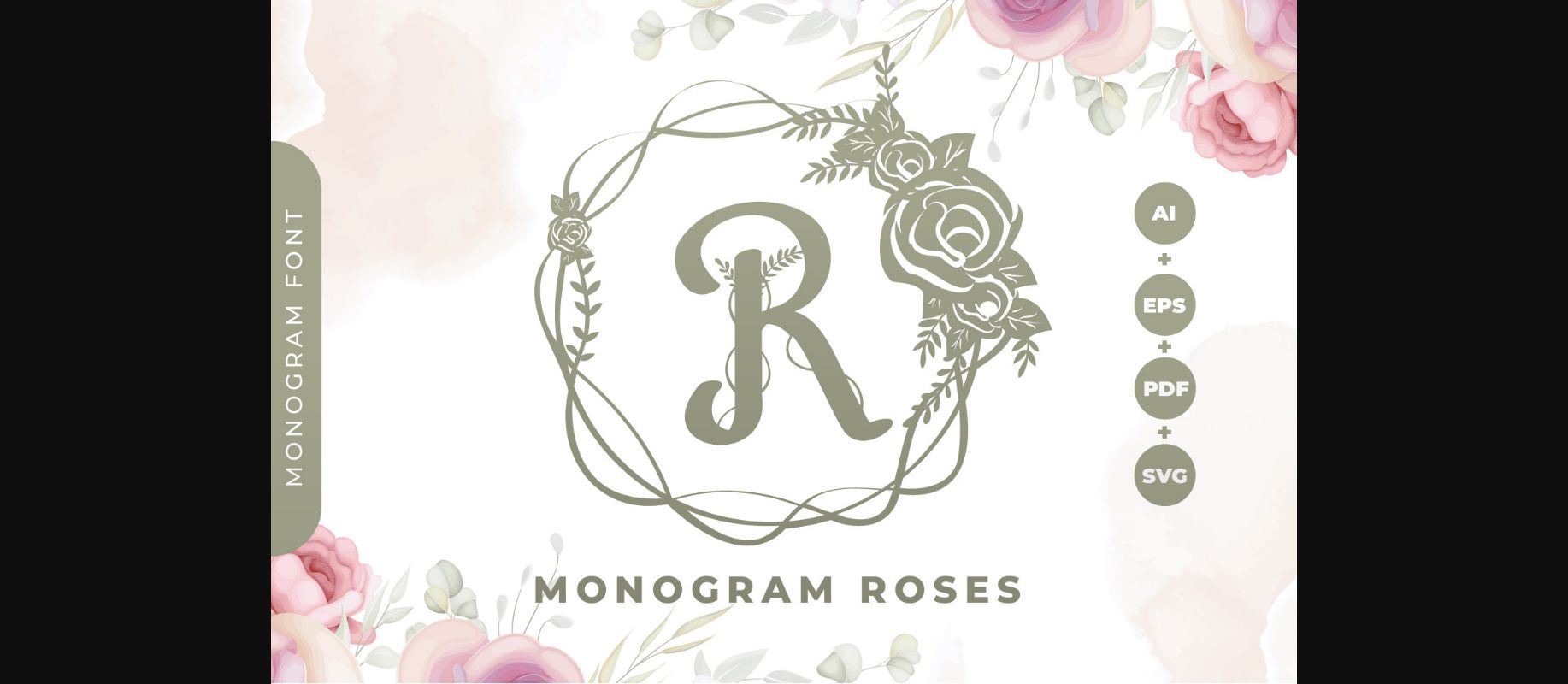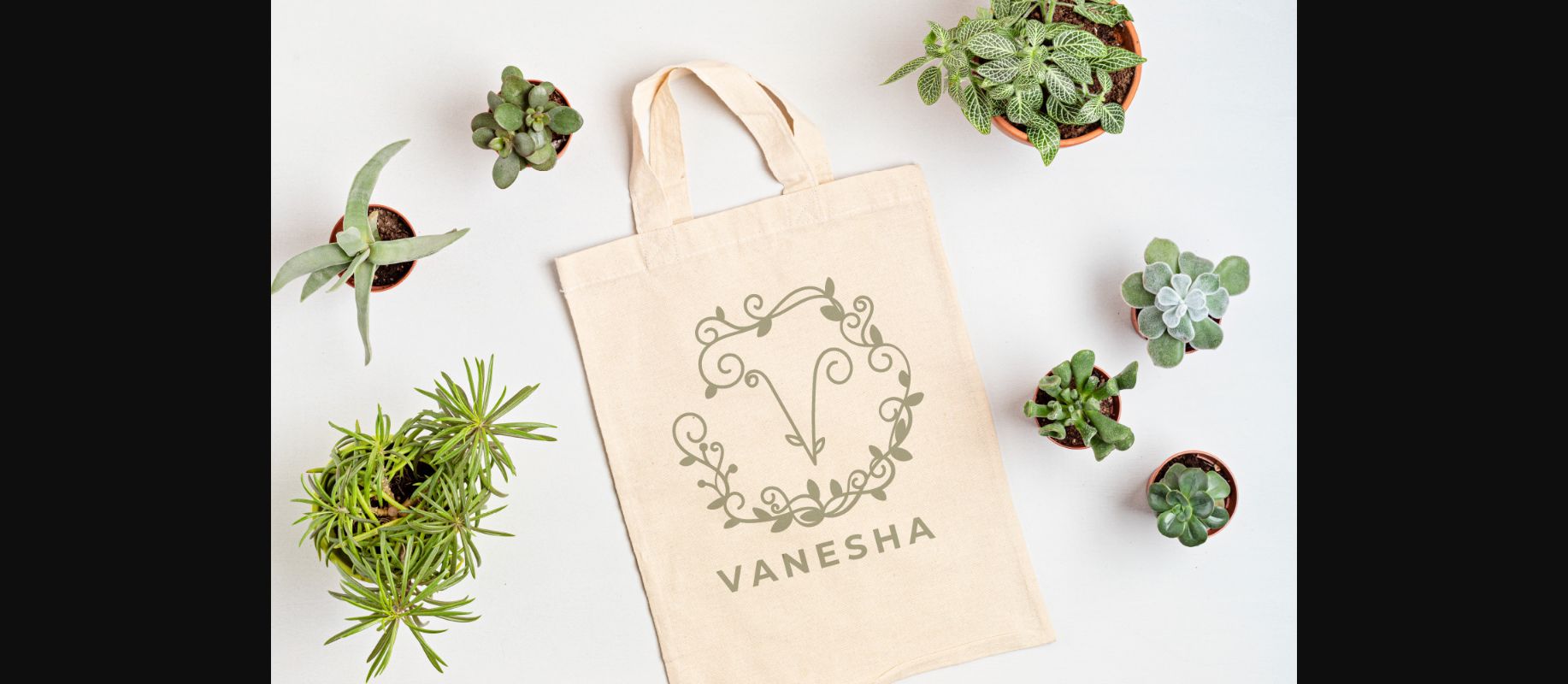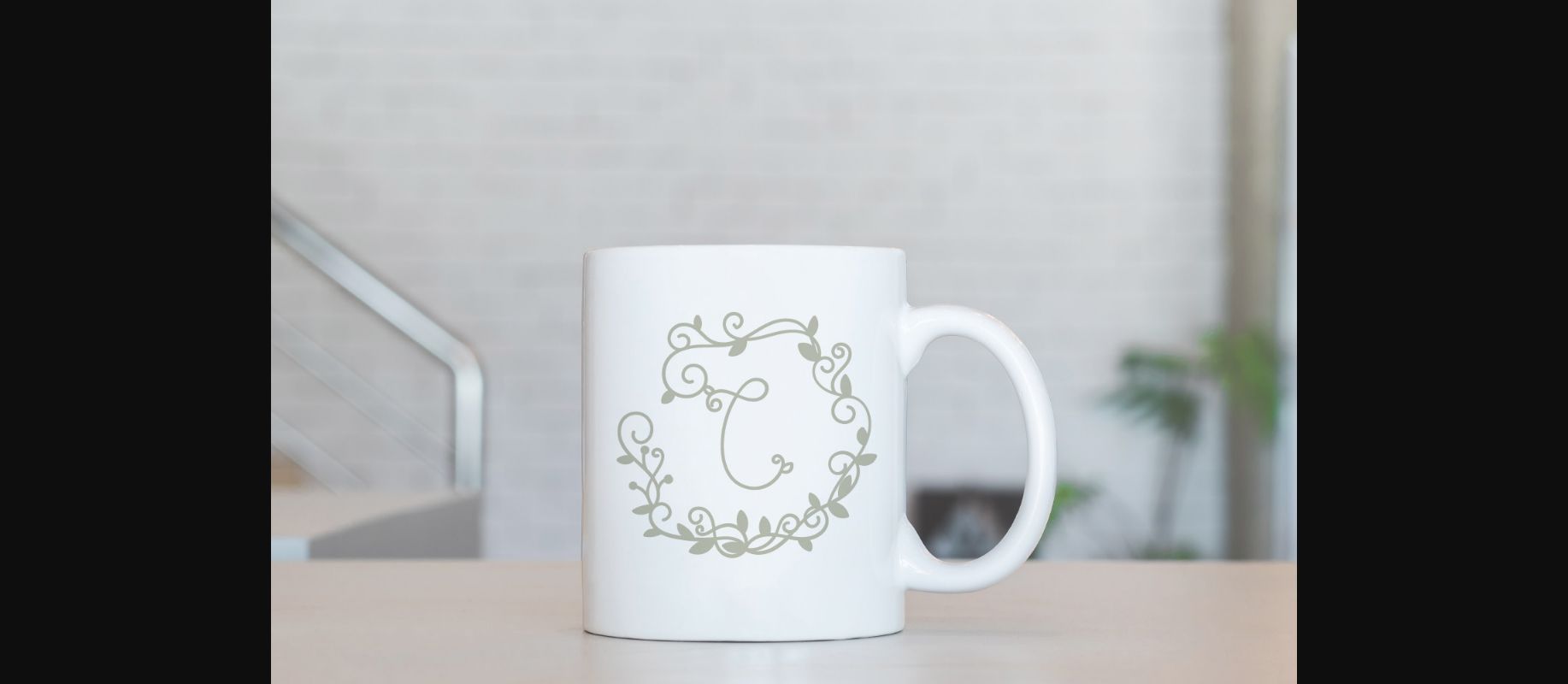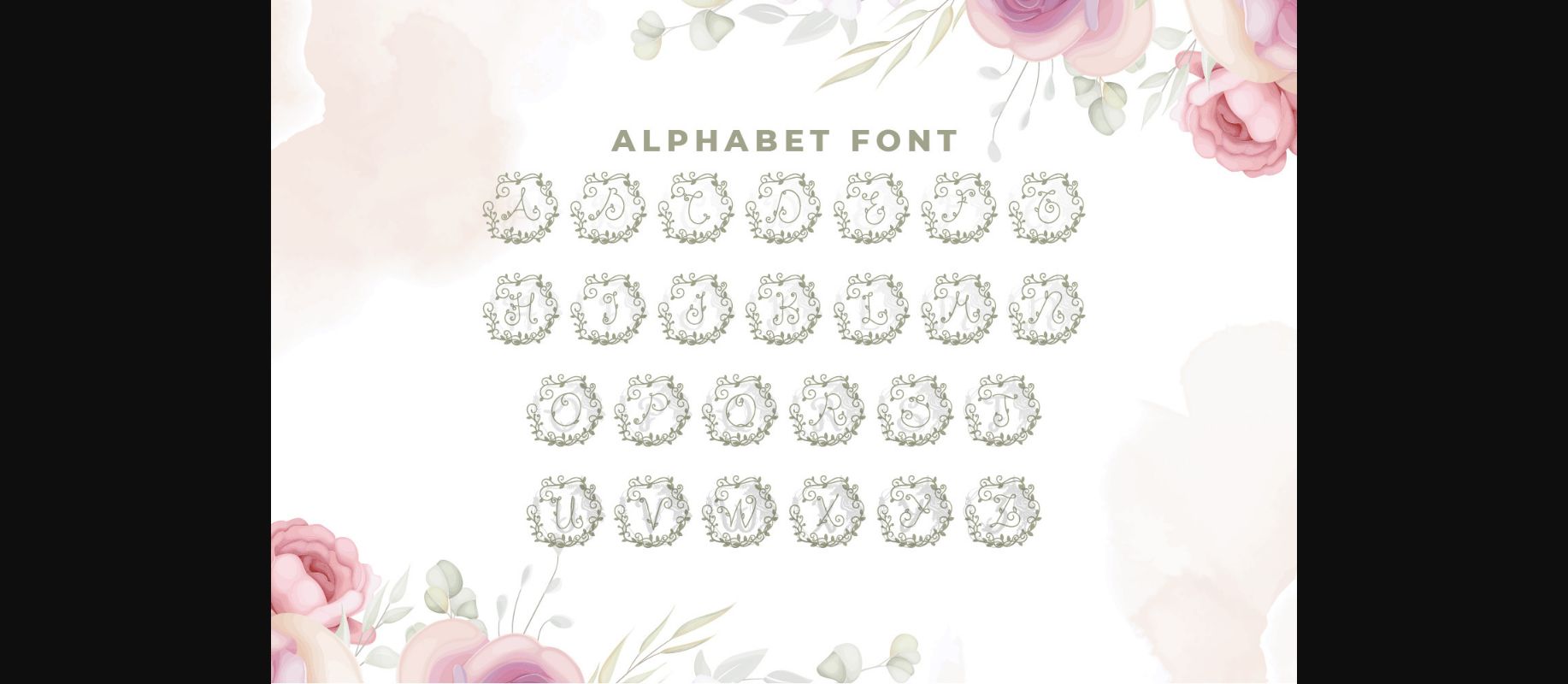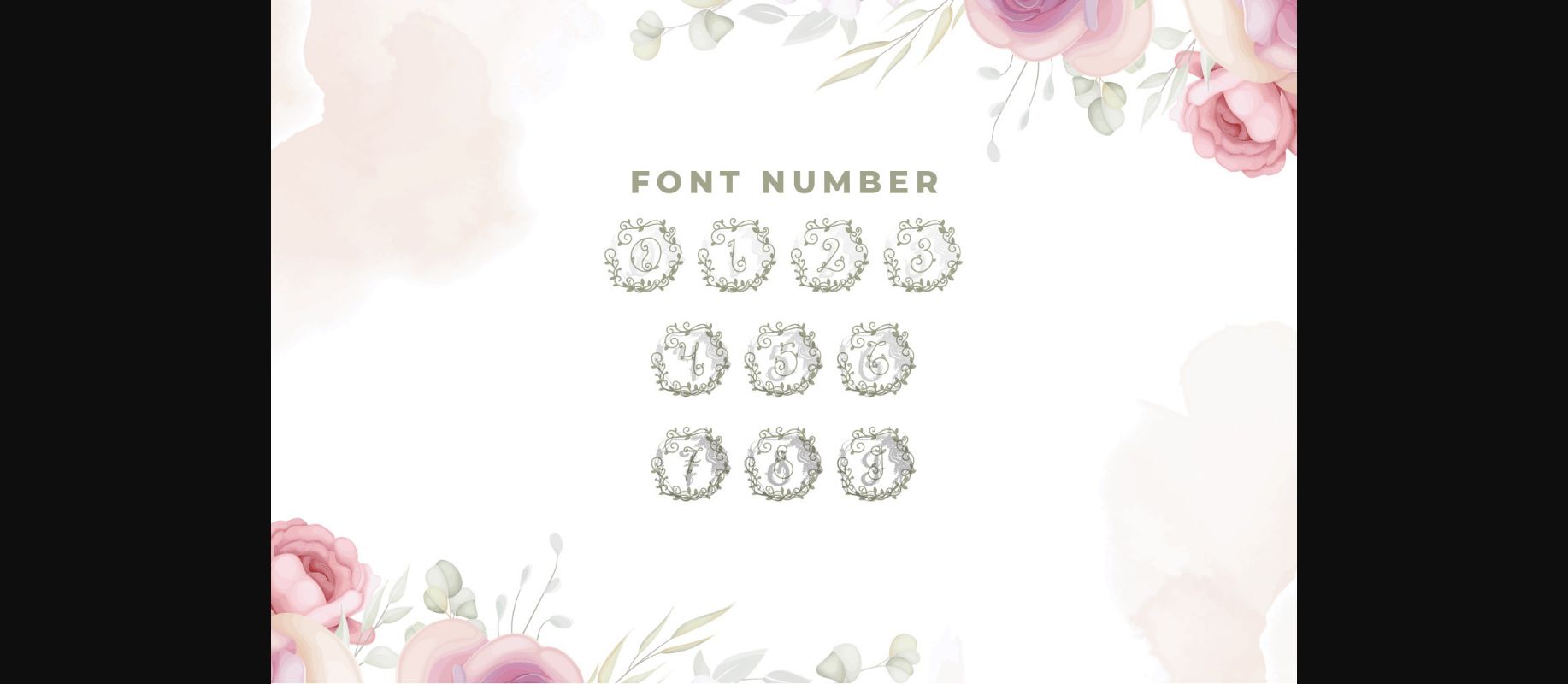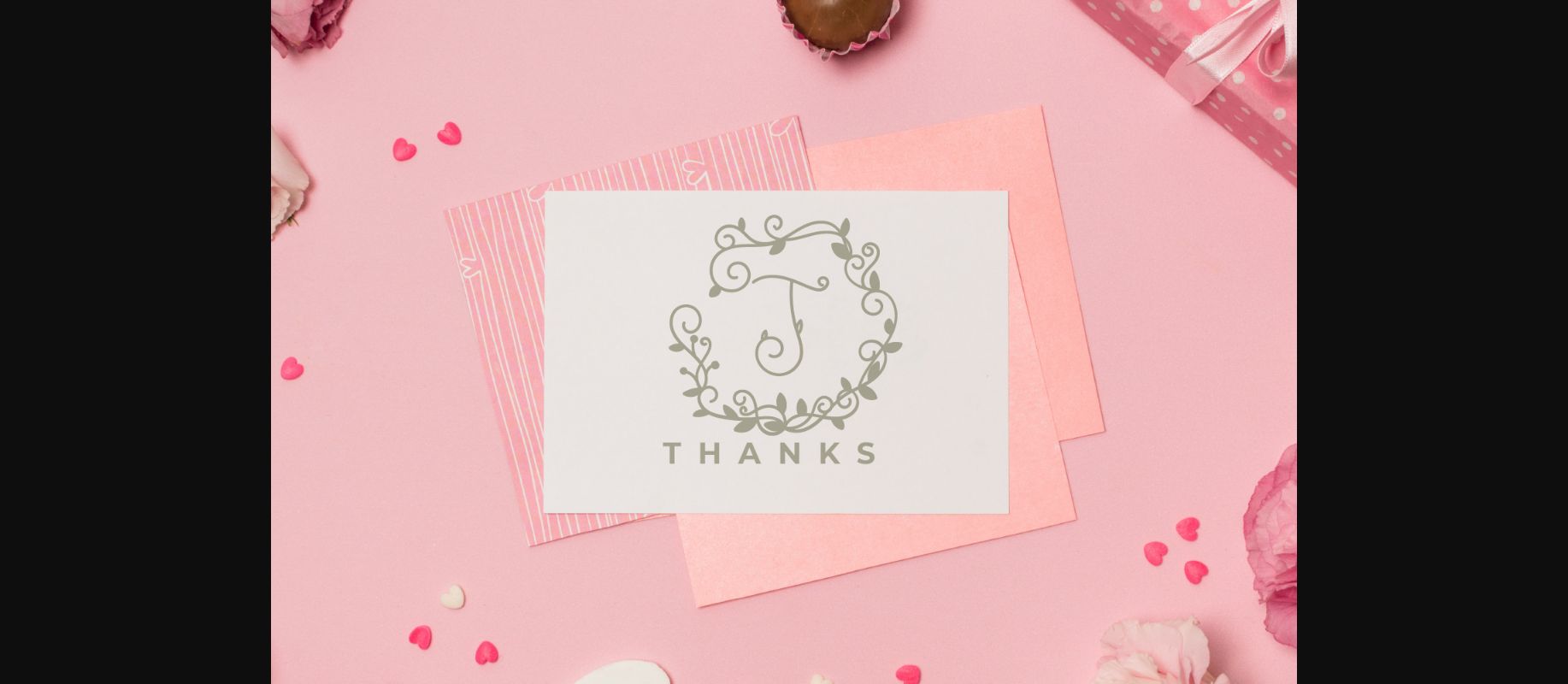
Monogram Roses Font
About Monogram Roses Font
Monogram Roses is a beautiful decorative font. Add this romantic and lovely looking font to each of your love letters, wedding invitations or favorite design ideas, and you will be astounded by the outcome.